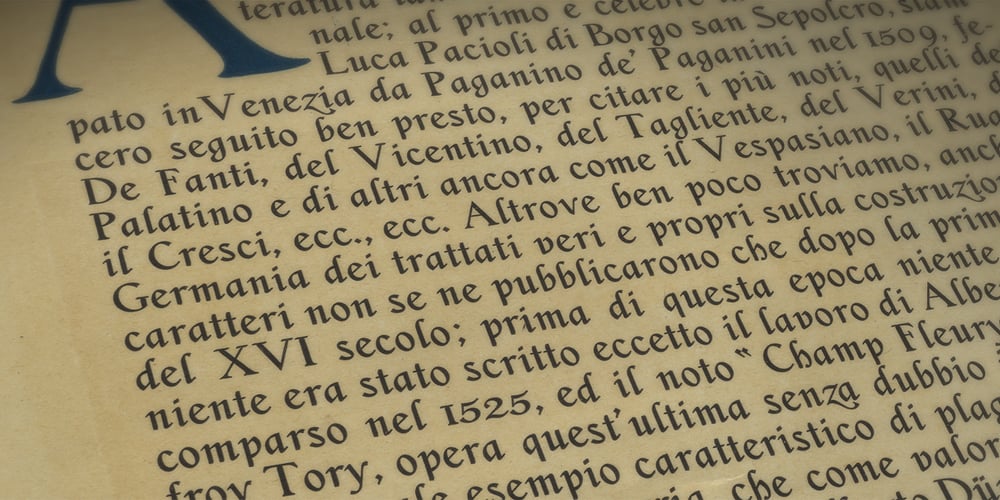
Flanker Ruano Font Family was designed by Raffaello Bertieri, Leonardo Di Lena and published by Flanker. Flanker Ruano contains 2 styles and family package options. The typeface Ruano was inspired from “Lettera cancelleresca formata” by the Vatican calligrapher Ferdinando Ruano, carved and cast in 1926 by Nebiolo of Turin on the advice of Raffaello Bertieri who designed the capital letters and numbers, missing in the original. The difficulty of the design of this chancery font lies in its original vertical layout, bending the calligraphic harmonies to the Gothic style, thus distinguishing it from contemporary cursive alphabets.